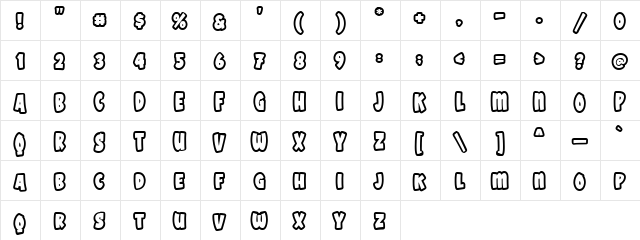
Complete Spooky Cartoon Regular glyph index. Displaying only characters natively supported by Spooky Cartoon Regular font.
Spooky Cartoon has an approachable, lighthearted character - its loose, expressive forms are well-suited to children's content, casual branding, and fun-first design.
Font Pairing: Pairs well with a rounded or humanist sans for body copy, maintaining the friendly tone without relying on Spooky Cartoon to carry extended reading.
Pro Tip: Use Spooky Cartoon at larger display sizes where its expressive character can land. Pair with a clean, simple sans for body copy to maintain readability.